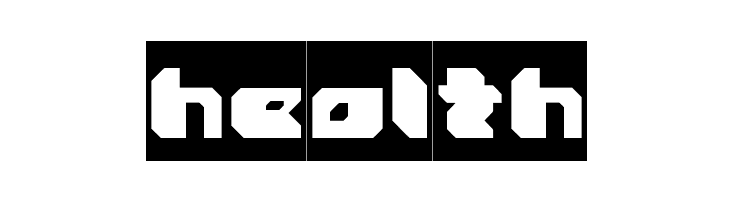
• Spiral Bitmap
( Addax Designs - www.nt-p.net/adx/index.html )
A pixelated, retro-style font with a digital, tech-inspired aesthetic.
• SPORT SPIRIT AF
( Abstract Fonts - www.abstractfonts.com )
A bold, blocky font ideal for sports and athletic branding.
• Spudly in the Sky with Daemons
( Alternika )
A playful, casual handwritten font with irregular, whimsical letterforms.
• Squish
( Anigma New Media - www.anigma.fsnet.co.uk/an/anigma-fonts.html )
A bold, decorative font with intricate, interconnected letterforms.
• Stinkin Boop Font
( Annie de la Vega )
A bold, playful font with a three-dimensional outline effect.
• STRANGER-Hollow
A bold, geometric font with hollow interiors and a futuristic style.
• STRANGER-Inverse
A bold, geometric font with sharp angles and a modern aesthetic.
• Striped Font
( Androideeapp - websiteandroidee.weebly.com )
A bold, striped font with a modern, energetic style.
• Sugar Regular
( ADavis )
A playful, handwritten font with smooth, rounded strokes and a casual vibe.
• Superbal
( 23SE - formerly at home4.swipnet.se/~w-44190/fonts/ )
A bold, artistic font with a distressed, modern look.